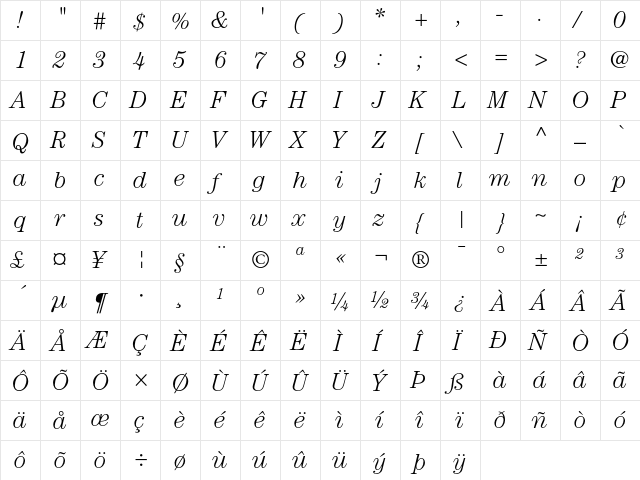
ITC Century Light Italic
Design Context for ITC Century Typeface
ITC Century is a composed and adaptable typeface that performs quietly and consistently across a wide range of design contexts. The dynamic lean of this cut emphasises speed and emphasis in any layout. The delicate stroke weight brings airiness and refinement to layouts.
Pro Tip: Use ITC Century for emphasis, pull quotes, and subheadings where its slanted energy can add rhythm to the layout.